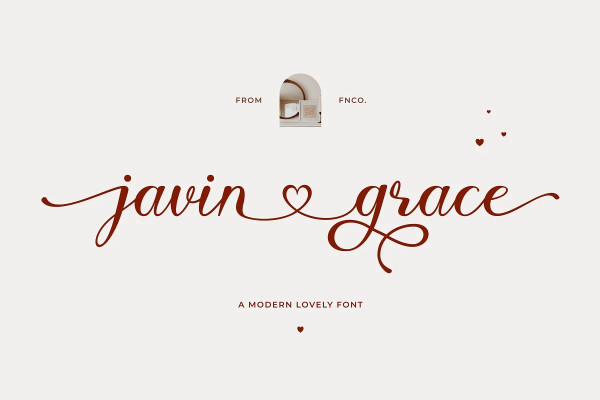
Javin Font
Javin is a handcrafted script, this style gives a feel of Girly, modern, Suitable for any graphic designs such as branding materials,print, business cards, logo, poster, t-shirt, photography, quotes .etc